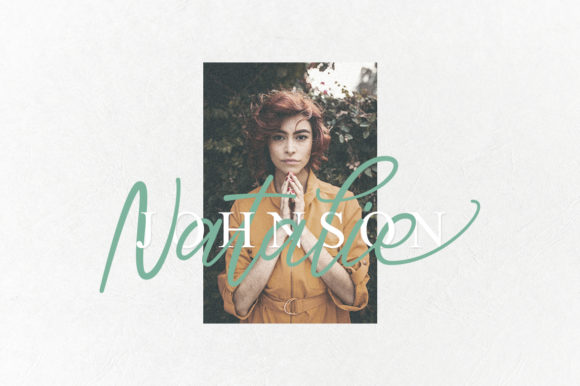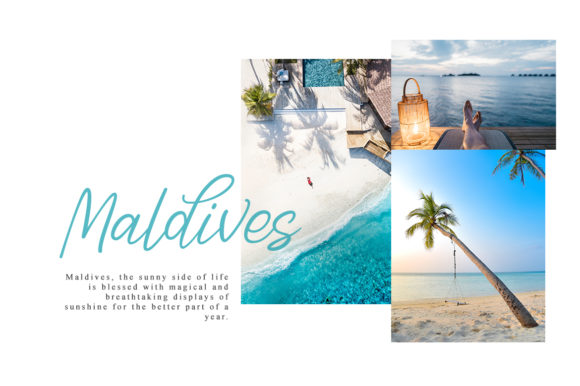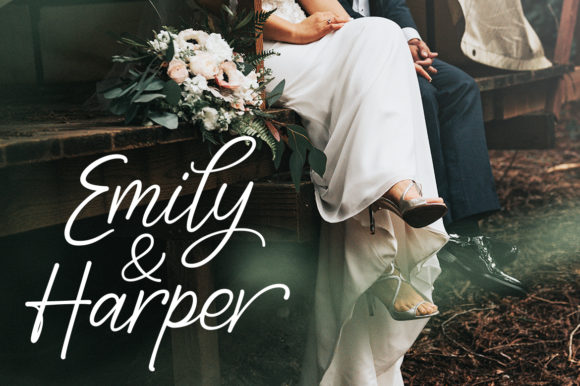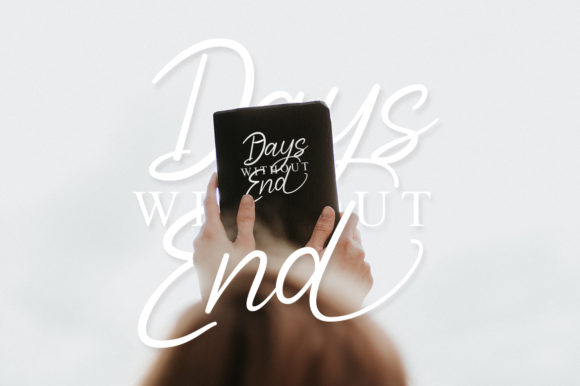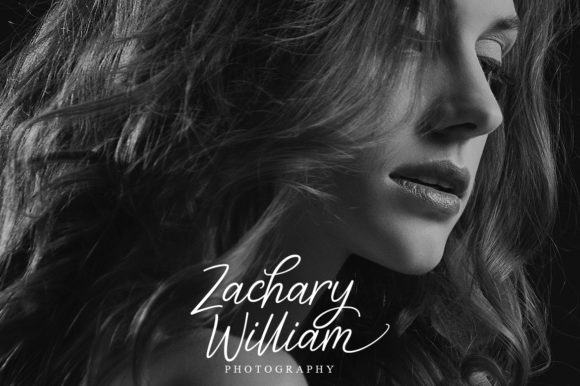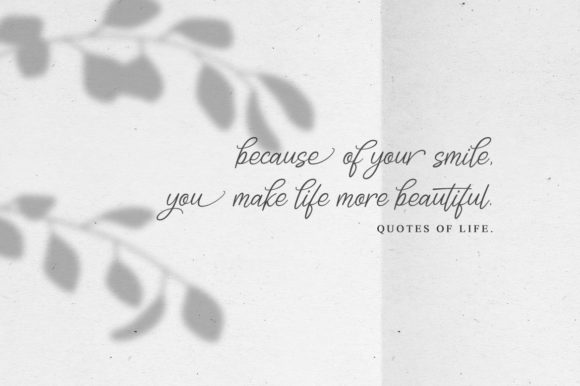
The Adelliya Script Font: A Beautiful Addition to Your Design Arsenal
I’ll never forget the time I was working on a project for a client who wanted a font that was both elegant and playful. I spent hours scouring the internet for the perfect font, but nothing seemed quite right. That was until I stumbled upon the Adelliya Script Font. With its undeniably elegant charm, it was love at first sight! In this article, I’ll share my experience with Adelliya, its features, and how to make the most of it in your design projects.
An Honest Review of Adelliya Script Font
What I Love About Adelliya ✨
• 💫 Beautifully crafted letters with an undeniably elegant charm
• ✅ Easy to read, even in smaller sizes
• 🎨 Highly versatile and pairs well with a variety of design styles
• 🖋️ Perfect for adding a touch of personality to any design project
• ⚠️ Some users may find the font a bit too light for certain design applications
• 🤔 Limited availability of certain special characters or glyphs
The Story Behind Adelliya
Adelliya was designed with the intention of creating a beautiful and elegant script font that would add a touch of personality to any design project. The designer, inspired by classic calligraphy and modern typography, crafted Adelliya to be both refined and approachable. With its light and airy feel, Adelliya is perfect for designs that require a touch of sophistication and whimsy.
Font Name Adelliya Script Font
Author Weape Design
Q: What is the best way to use Adelliya in my designs?
A: Adelliya is a versatile font that can be used in a variety of design applications, from branding and packaging to web design and social media graphics.
Q: Is Adelliya suitable for body text?
A: While Adelliya is a beautiful font, it’s best suited for headlines and titles. For body text, you may want to choose a font with better legibility.
Q: Can I use Adelliya with other fonts?
A: Absolutely! Adelliya pairs well with a variety of fonts, from sans-serifs to serifs. Experiment with different font combinations to find the perfect pairing for your design.